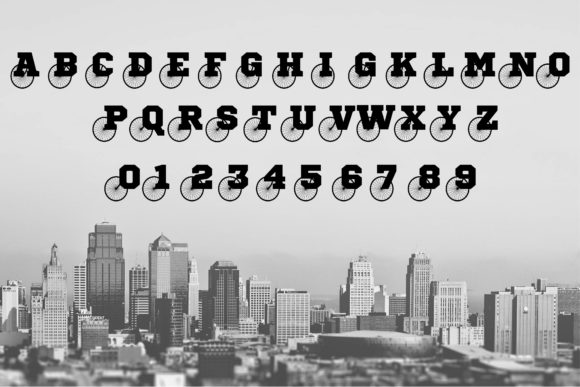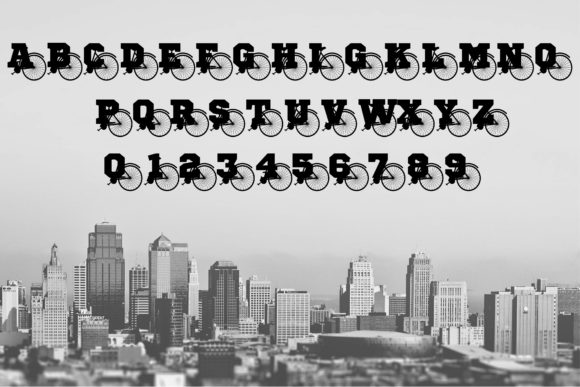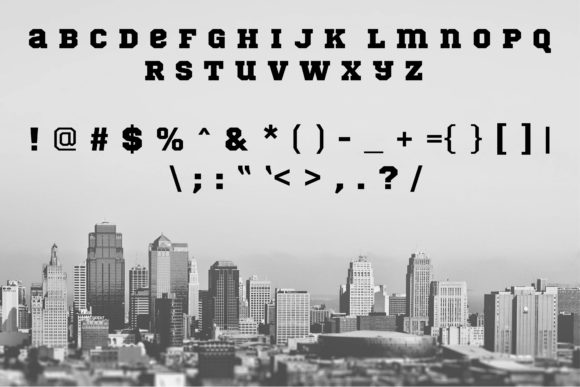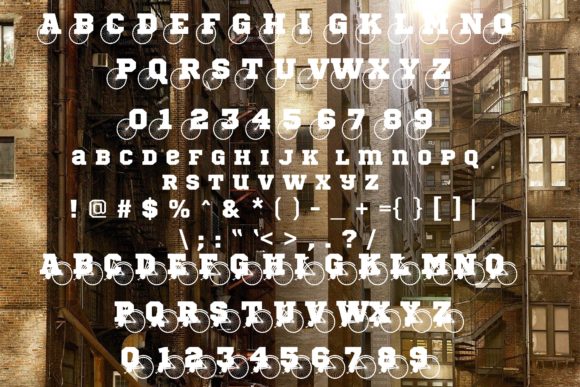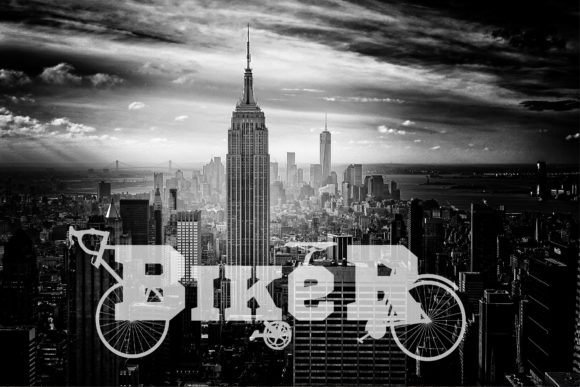
Biker Font: The Ultimate Duo for Stylish Designs
When it comes to creating visually appealing designs, typography plays a crucial role. The right font combination can elevate your project from ordinary to extraordinary. For designers and crafters looking for a stylish and balanced feel, the Biker font duo is a match made in heaven. In this article, we’ll explore the world of Biker fonts, their characteristics, and why combining them is a game-changer for your next design project.
What is Biker Font?
Biker font, also known as Biker Chic or Biker Script, refers to a style of typography that embodies the spirit of the biker culture. It’s characterized by bold, rugged, and edgy letterforms that evoke a sense of freedom and rebellion. Biker fonts often feature distressed or worn textures, giving them a unique, laid-back vibe.
The Power of Font Pairing
Font pairing is an art that can make or break a design. The right combination can create visual harmony, while a mismatched duo can lead to a cluttered and confusing layout. When it comes to Biker fonts, pairing two complementary fonts can add depth, contrast, and style to your design. By combining two Biker fonts, you can create a balanced and cohesive look that’s perfect for various design projects, such as logos, posters, and social media graphics.
Why Combine Two Biker Fonts?
So, why should you combine two Biker fonts? The answer lies in the versatility and visual interest it brings to your design. By pairing two Biker fonts, you can:
- Create contrast: Combining two Biker fonts with different styles, textures, or weights adds visual contrast, making your design more engaging.
- Add depth: Layering two Biker fonts creates a sense of depth, adding dimension to your design.
- Enhance style: A well-paired Biker font duo can elevate your design from basic to stylish, making it perfect for designs that require a bold statement.
Tips for Pairing Biker Fonts
Pairing Biker fonts may seem daunting, but with a few simple tips, you can create stunning combinations:
- Mix and match styles: Combine a bold, sans-serif Biker font with a script or serif font for added contrast.
- Play with textures: Pair a distressed Biker font with a clean, smooth font for a striking contrast.
- Balance weights: Combine a bold Biker font with a lighter or italic version of the same font for visual interest.
Best Use Cases for Biker Font Duo
The Biker font duo is versatile and can be used in various design projects, including:
- Logos and branding: Create a bold, eye-catching logo that embodies the spirit of adventure and freedom.
- Posters and flyers: Design attention-grabbing posters and flyers for events, concerts, or festivals.
- Social media graphics: Elevate your social media presence with stylish, Biker-font duo-inspired graphics.
In conclusion, combining two Biker fonts is a match made in heaven for designers and crafters looking to add a stylish and balanced feel to their designs. By understanding the world of Biker fonts, the power of font pairing, and tips for pairing, you can create stunning designs that capture the essence of the biker culture. Whether you’re designing logos, posters, or social media graphics, the Biker font duo is sure to elevate your project to new heights.